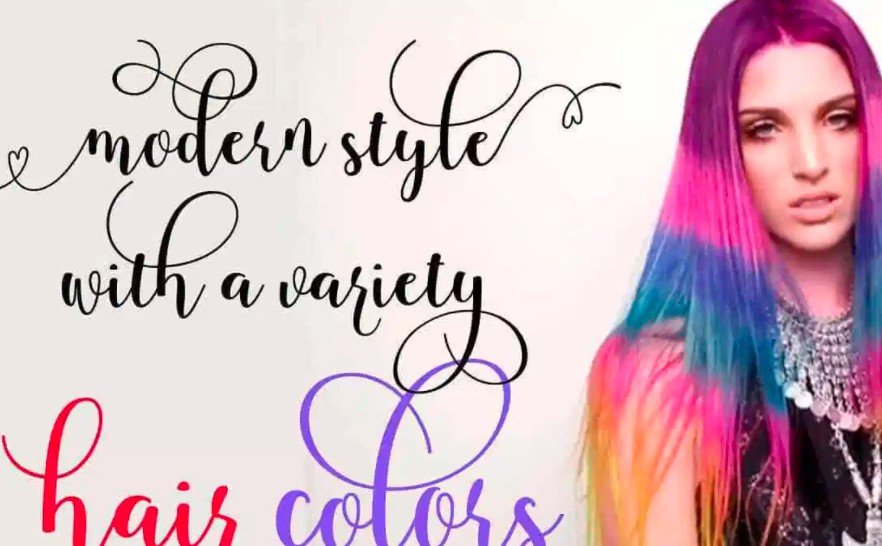
Hey there, we are going to share with you the cool and modern scripted as well calligraphic typeface that is Agustina Script Font that is the vanishing scripted typeface ever that you can easily utilize for all your great works.
It comes with more than 249 glyphs which include beautiful ligature, texture, punctuators, and styles. You can download it for free and make use of all eye catchy projects.
This is one of the popular and rich features typeface that comes along with opentype layout that will give your more features. You can also use it as a pairing with the combination of geo sans light font.
The Agustina Script Font is the famous and amazing typeface which was product of the combination efforts by CoolDesignLab.